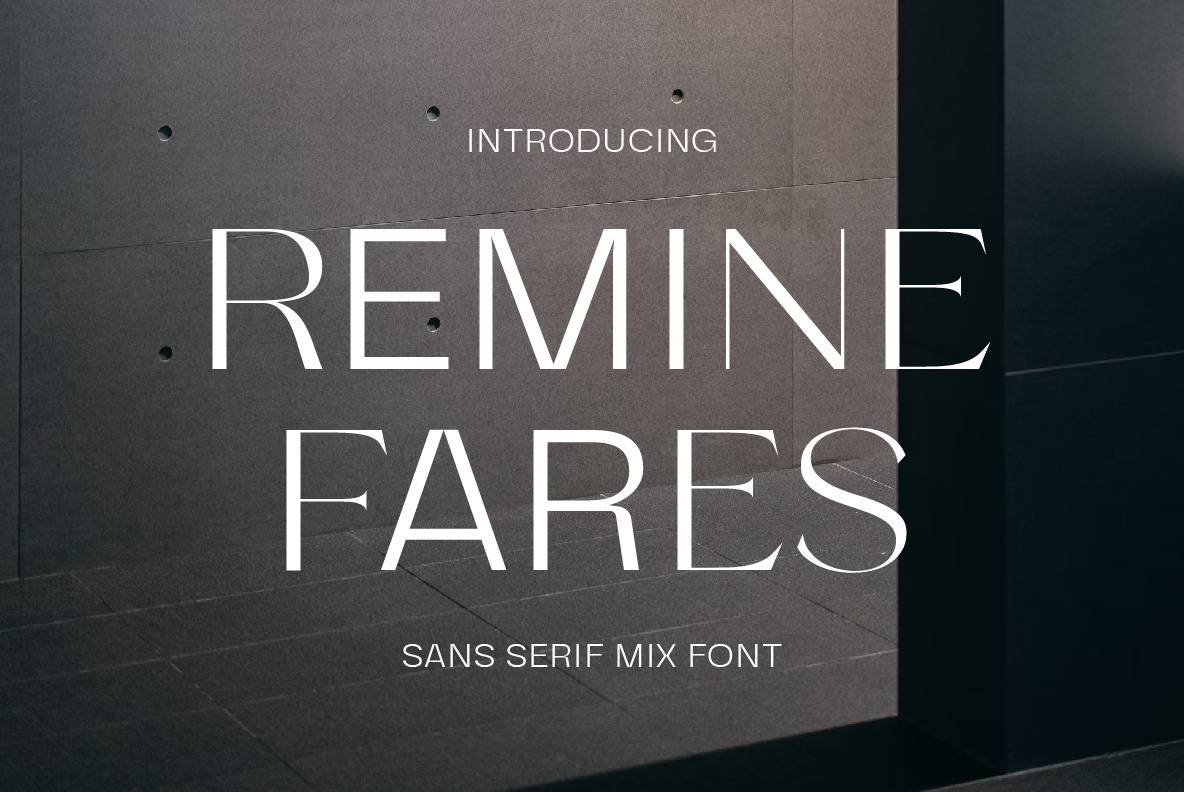
Remine Fares Display Font
Remine Fares Mix Font is a font that combines the uniqueness and beauty of two different font styles, namely sans serif and serif, in one harmonious font. With this combination, this font provides flexibility and unlimited possibilities in expressing creativity and creating attractive design looks.
The sans serif section of the Remine Fares Mix Font offers a clean, modern, and minimalist feel. The letters have straight, bold lines, creating a simple but striking impression. This style is perfect for design projects that need a simple but modern look, such as bold titles or text that needs simplicity.
With a seamless blend of sans serif and serif in one font, Remine Fares Mix Font provides the ability to combine these two styles in one design composition. You can use sans serif to highlight important points or create easy-to-read text, while serifs can be used to add an artistic touch or create an interesting focal point.